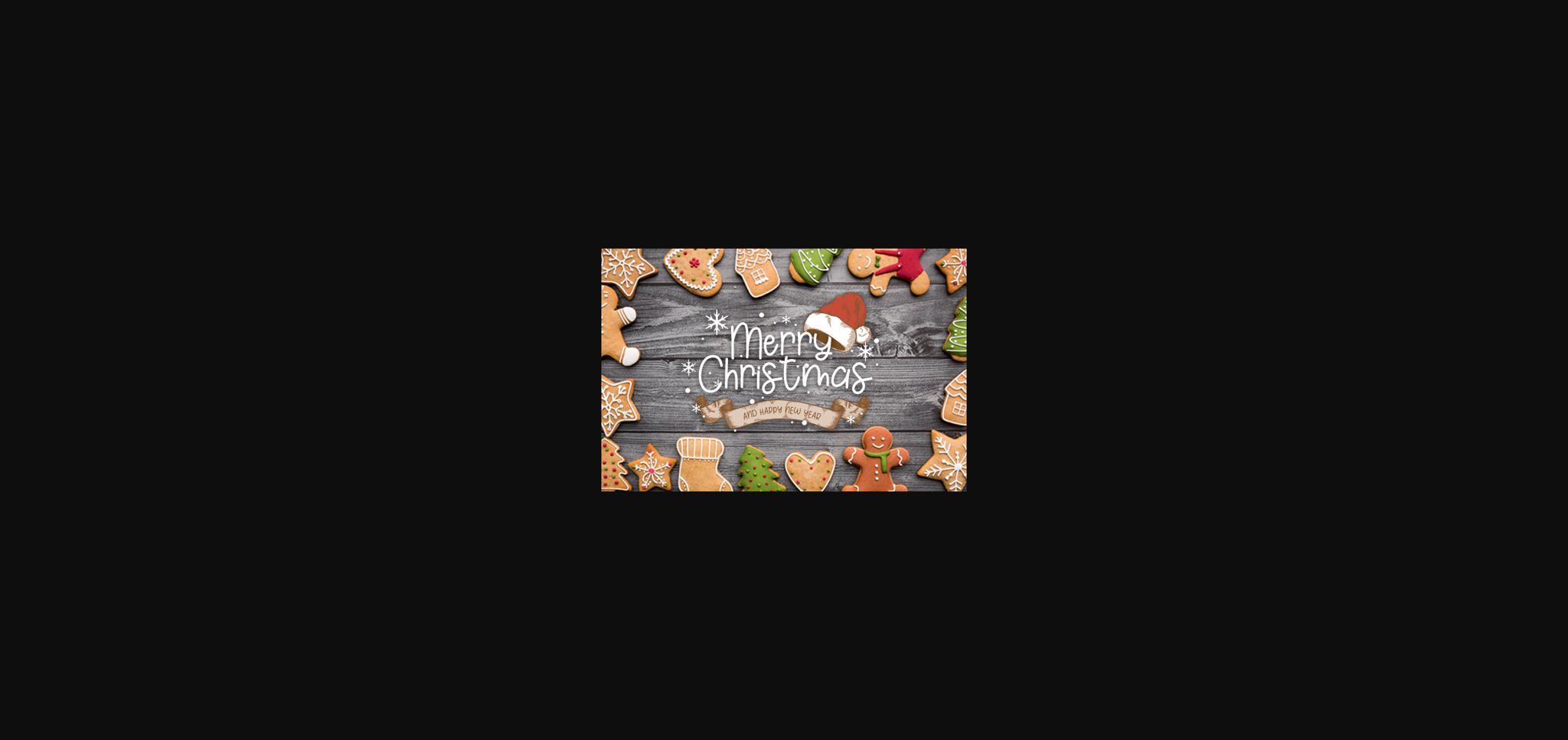
About The Gingerbread Font
The Gingerbread is a cute sans serif font carefully created with a touch of elegance. This font will elevate a wide range of design projects to the highest level, be it branding, headings, wedding designs, invitations, signatures, logos, labels, and much more!